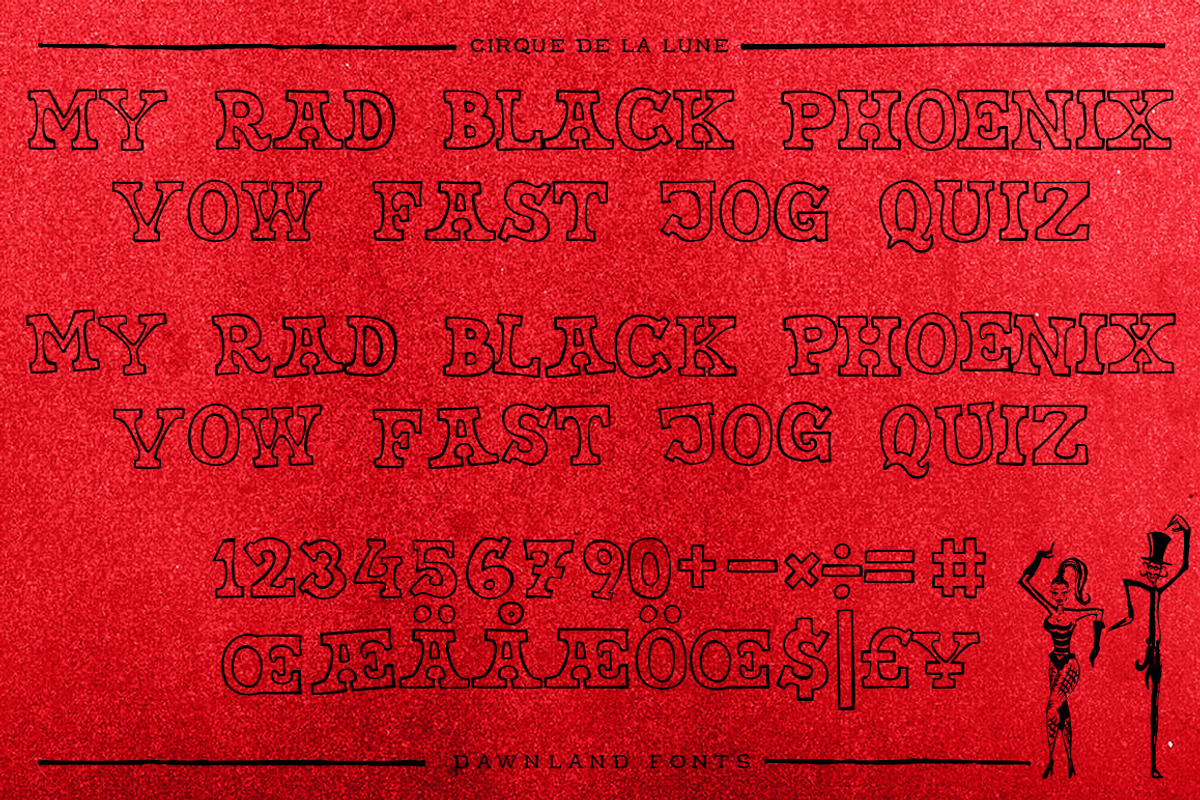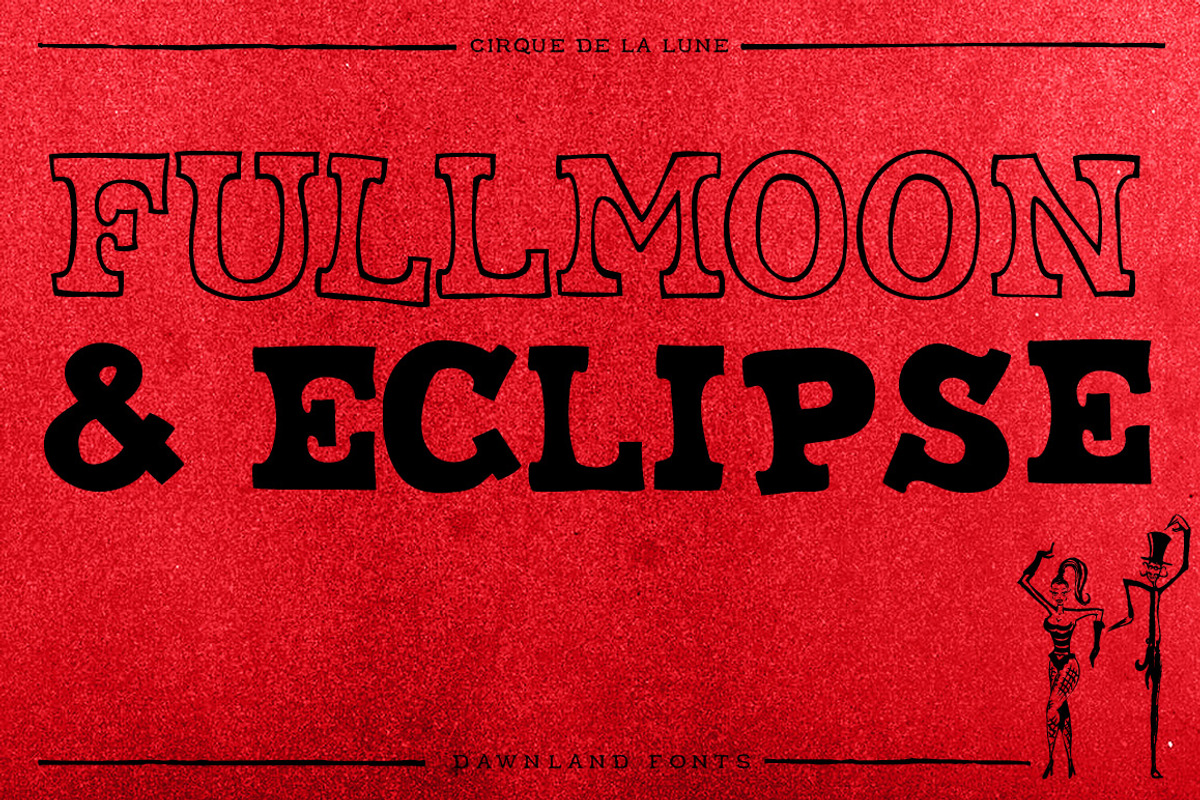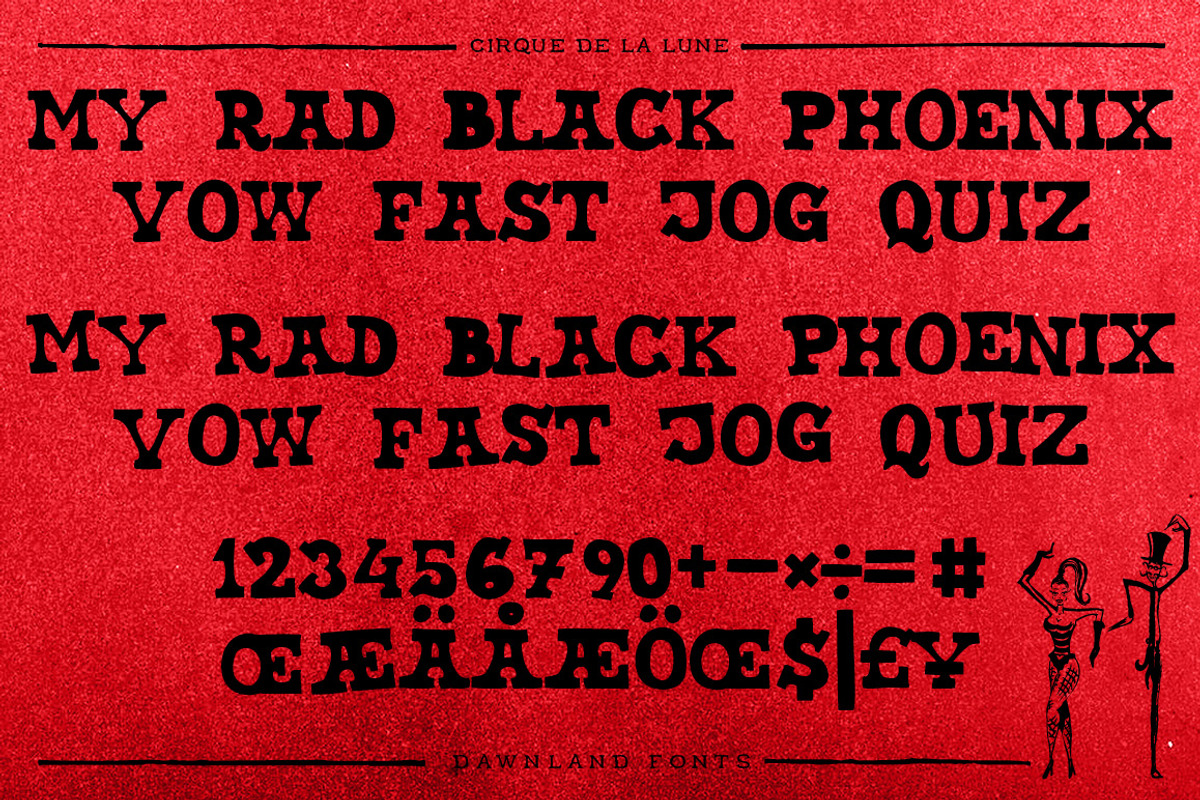
Cirque de la Lune - complete
Once a year Through mist and rain October soon to end
Have no fear Beneath the full moon we gather Welcome to the show!
Now - Silencio…
Cirque de la Lune is an uppercase only poster/display/headline font in two variants - Eclipse (regular) & Fullmoon (outline). Alternate, nudged or slightly rotated uppercase letters are placed on the lower case keys!